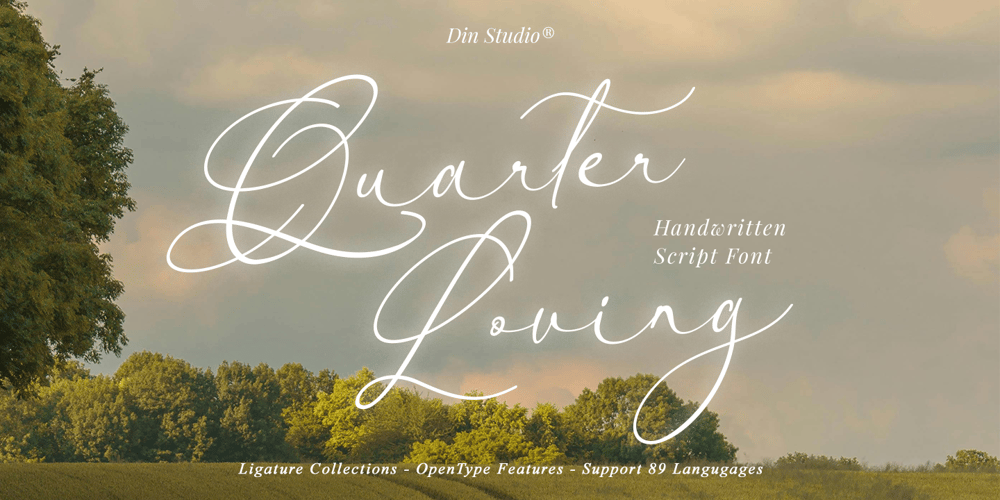
Quarter Loving Font Family was designed by Donis Miftahudin and published by Din Studio. Quarter Loving contains 1 styles and family package options. Quarter Loving is a whimsical handwritten font that infuses your designs with charm and character. With its thin weight and connected letters, this font flows beautifully, creating a seamless script. The inconsistent letter proportions and playful swinging ends give it a unique, lively appearance. In addition, enjoy the features here.Features: Ligatures Stylistic Sets Multilingual Supports PUA Encoded Numerals and Punctuations Quarter Loving fits in logos, posters, flyers, branding materials, print media, editorial layouts, and many more designs. Find out more ways to use this font by taking a look at the font preview.Thanks for purchasing our fonts. Hopefully, you have a great time using our font. Feel free to contact us anytime for further information or when you have trouble with the font. Thanks a lot and happy designing.